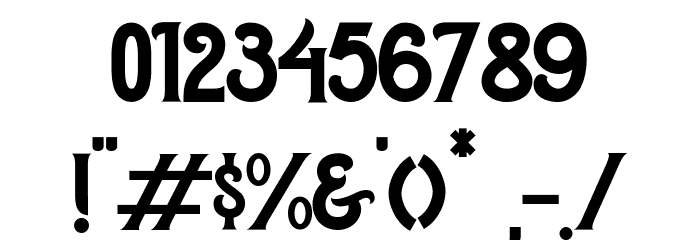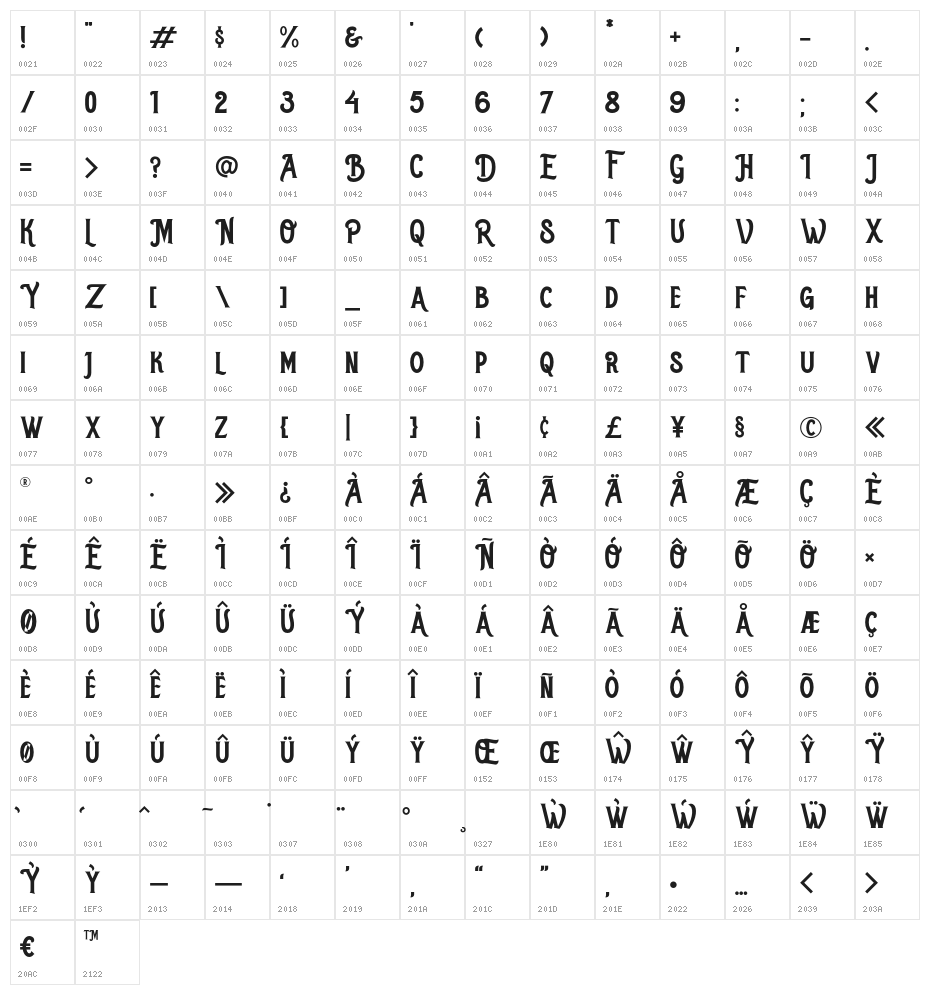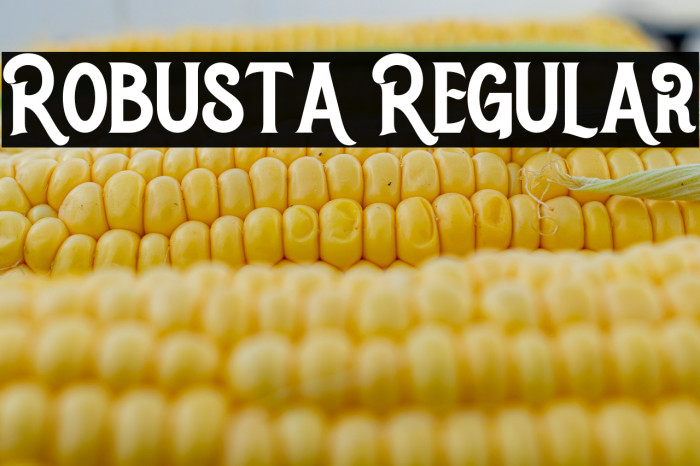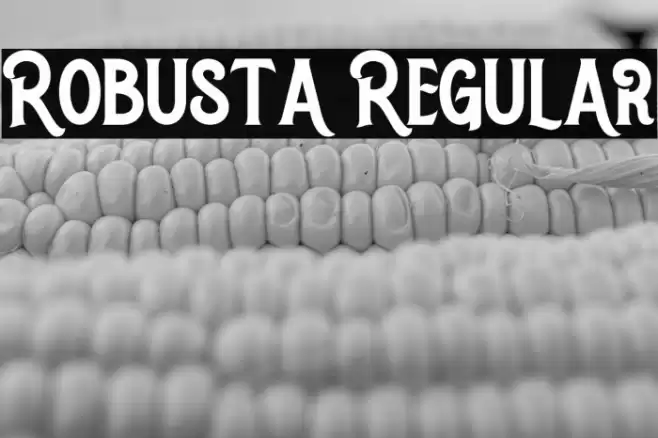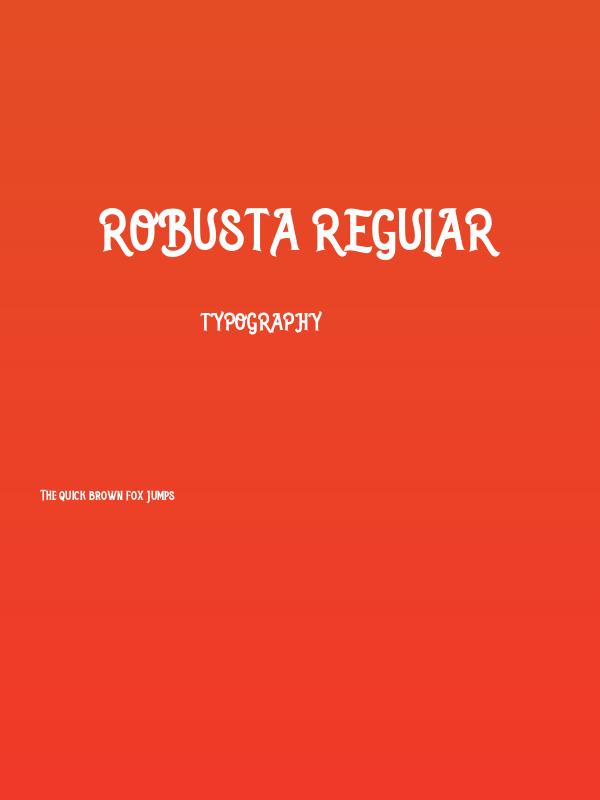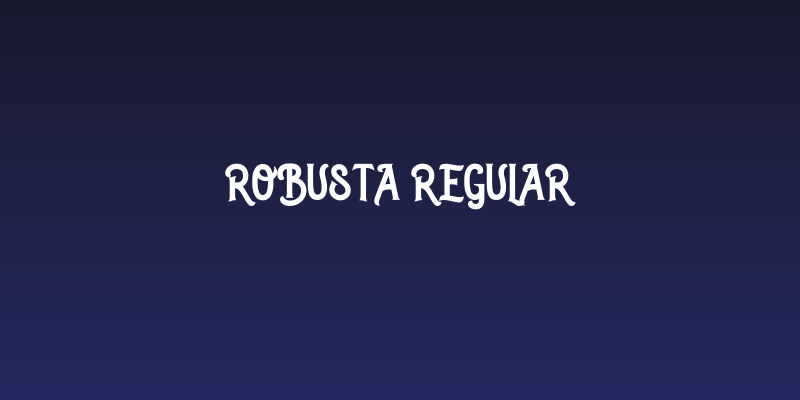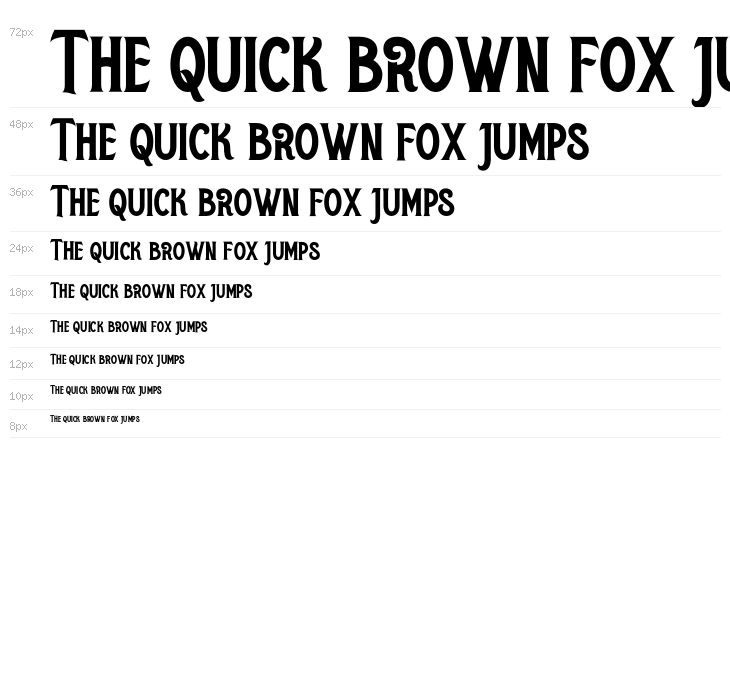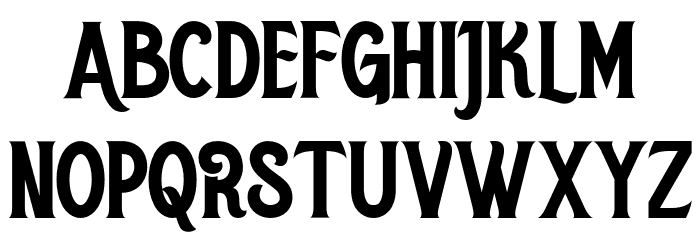
Robusta Regular Font
Robusta Regular Description
This font features a bold and dynamic style with a strong presence. The uppercase letters are characterized by thick, curved strokes and a slight slant, giving them a sense of movement and energy. The lowercase letters maintain this boldness, with rounded edges and a consistent stroke width that adds to the font's cohesive look. The numerals are equally robust, with a playful yet sturdy design that complements the alphabetic characters. Special characters are designed with the same bold strokes, ensuring uniformity across all glyphs. This font's overall appearance is both eye-catching and versatile, making it suitable for a variety of design applications.
| Proposed Projects | Ideal for branding, poster design, and headlines that require a strong visual impact. |